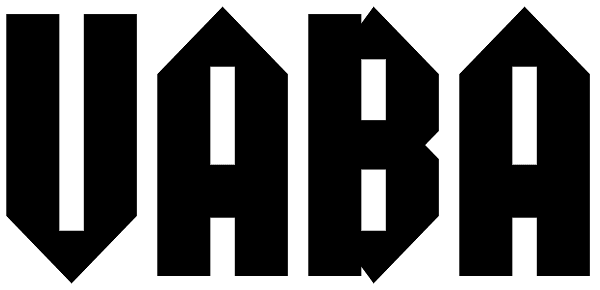
Vaba
VABA is a caps typeface inspired by the work of Vladimir Bartosek, Slovak designer. VABA refers to the Slovak typography in the 30ties of the last century, but it also appears modern and original in today's design. Typeface has plain, broken...